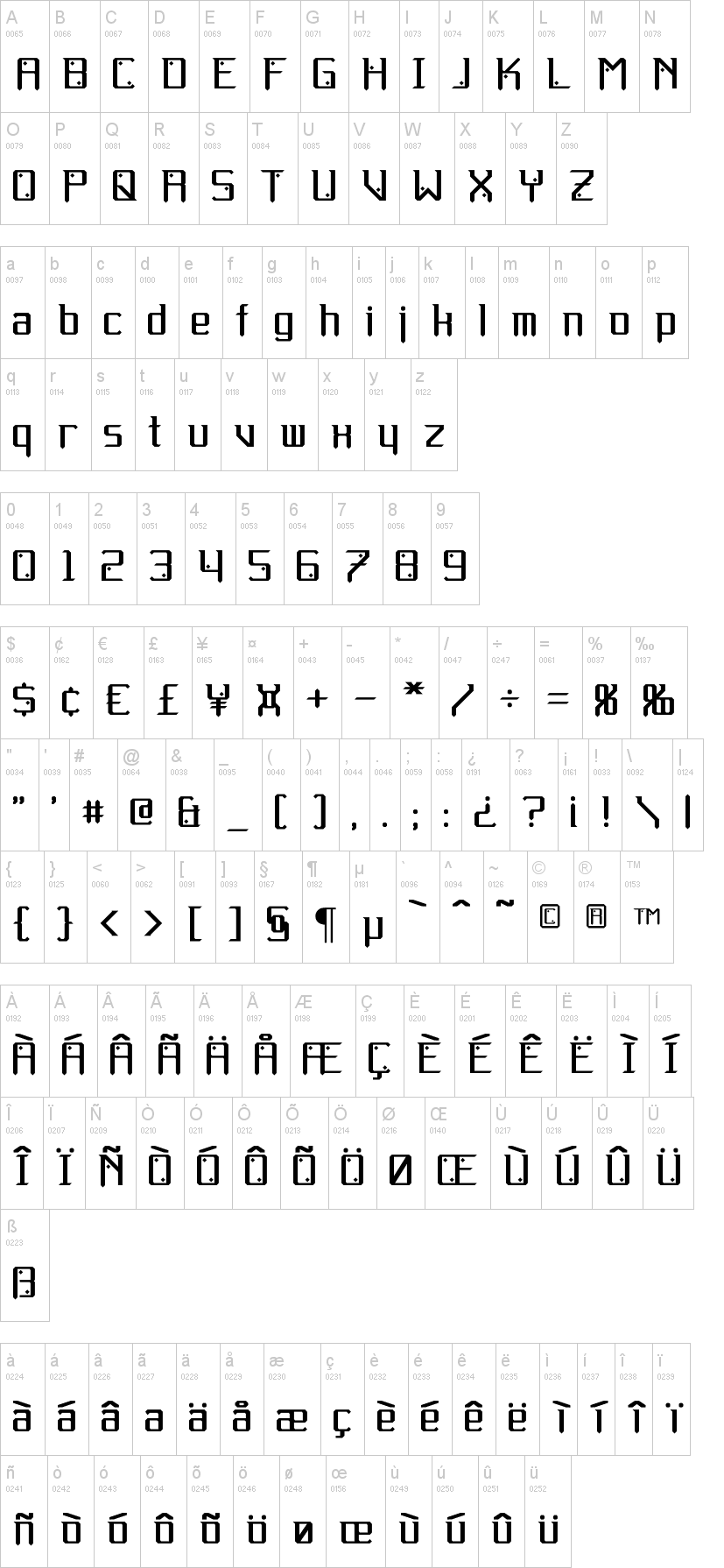
Gemcut Italic.otfGemcut Bold.otfGemcut Bold Italic.otfNote of the authorThis is actually my very first completed font. It's a simple 'art deco' motif with diamond-cut edges and decorations added. Includes full alphabet, extended punctuation, Euro. Includes italic version.